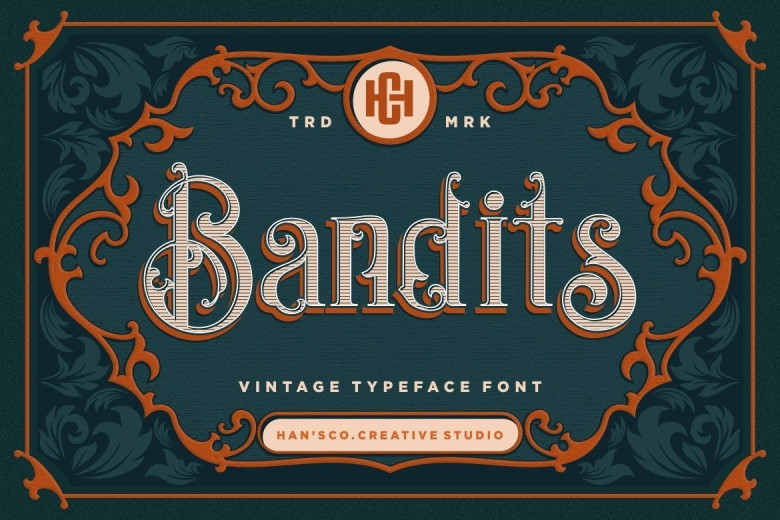
Bandits Blackletter Vintage Typeface
Bandits Font is a typeface with Blackletter style taste, includes full set of gorgeous uppercase and lowercase letters, numerals, punctuation, ligatures, discretionary ligatures, alternate characters, multilingual characters support and extra ornaments, giving realistic calligraphy blackletter style.